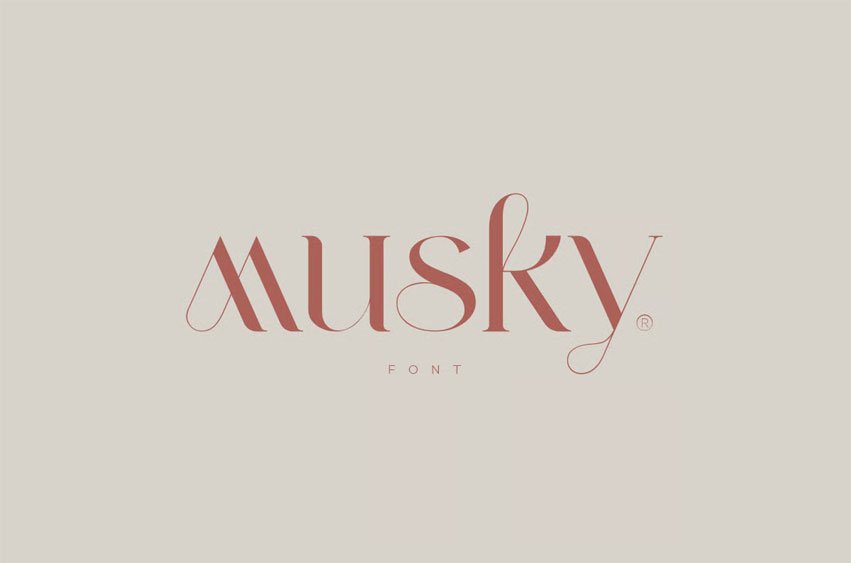
Musky Font is a modern serif font; every single letter has been carefully crafted to make your text look unique.
Foreign languages support: ÀÁÂÃÄÅÆÇÈÉÊËÌÍÎÏÐÑÒÓÔÕÖØÙÚÛÜÝàáâãäåæçèéêëìíîïðñòóôõöøùúûüýÿ